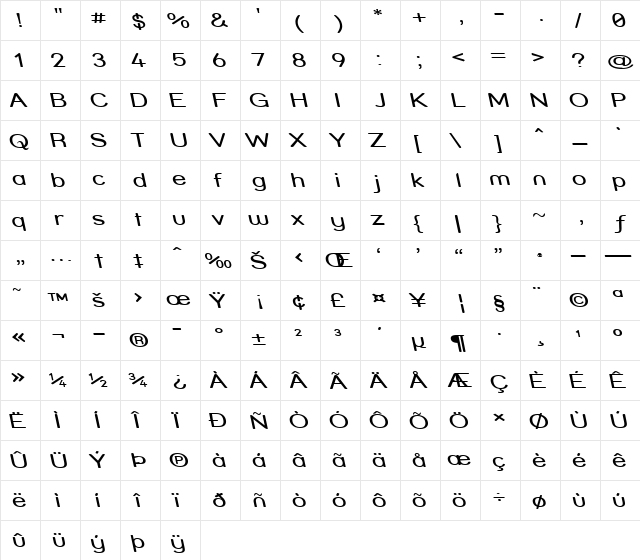
Street - Compressed Reverse Italic
| Designer | Graham Meade |
Design Context for Street - Compressed Reverse Typeface
Street - Compressed Reverse is a composed and adaptable typeface that performs quietly and consistently across a wide range of design contexts. Its italic angle brings a sense of urgency and motion to the letterforms.
Pro Tip: Use Street - Compressed Reverse for emphasis, pull quotes, and subheadings where its slanted energy can add rhythm to the layout.